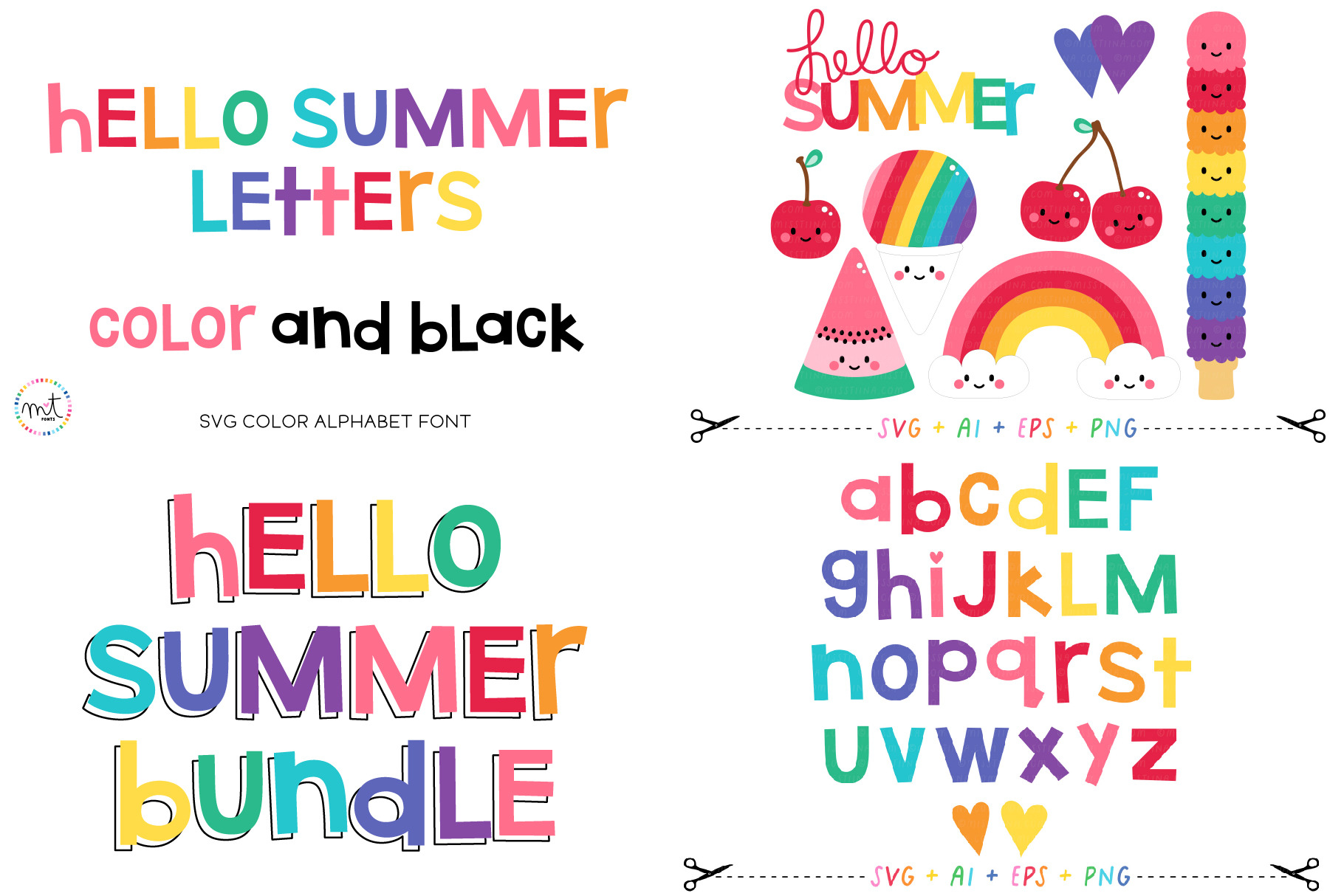
Hello Summer Color Font + SVG Bundle
Create titles, sayings and more with the Hello Summer Letters SVG color and black font! This font also features every letter in 8 colors for perfect rainbow text – access the alternate colored characters by using the Glyphs panel in Photoshop or Illustrator.